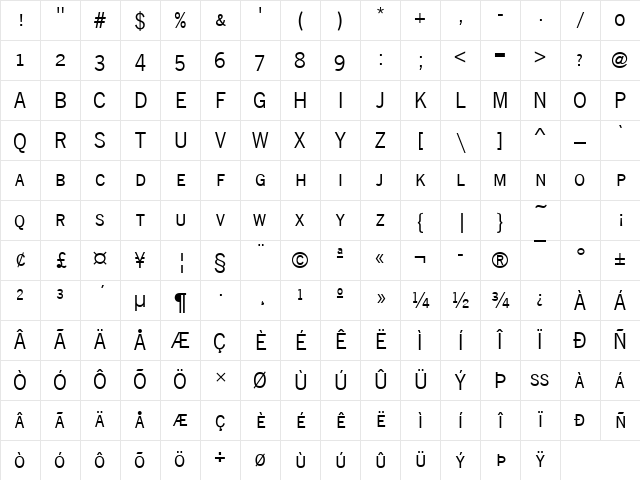
NewsGotSCTReg Regular
Design Context for NewsGotSCTReg
NewsGotSCTReg is a composed and adaptable typeface that performs quietly and consistently across a wide range of design contexts.